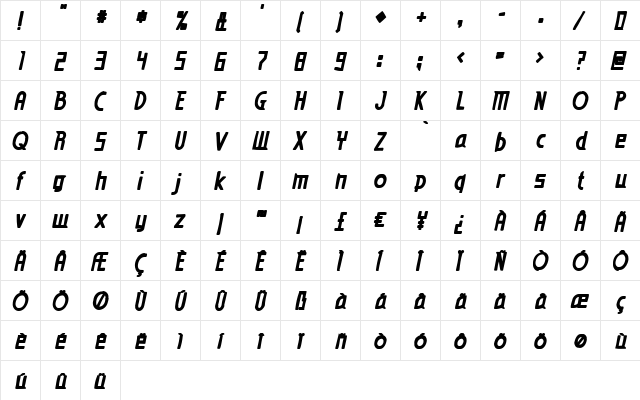
Eden Mills Ink Italic
| Designer | Ray Larabie / Larabie Fonts |
Design Context for Eden Mills Ink Typeface
Eden Mills Ink is a composed and adaptable typeface that performs quietly and consistently across a wide range of design contexts. Its italic angle brings a sense of urgency and motion to the letterforms.